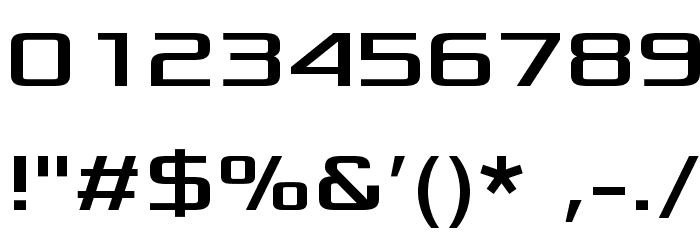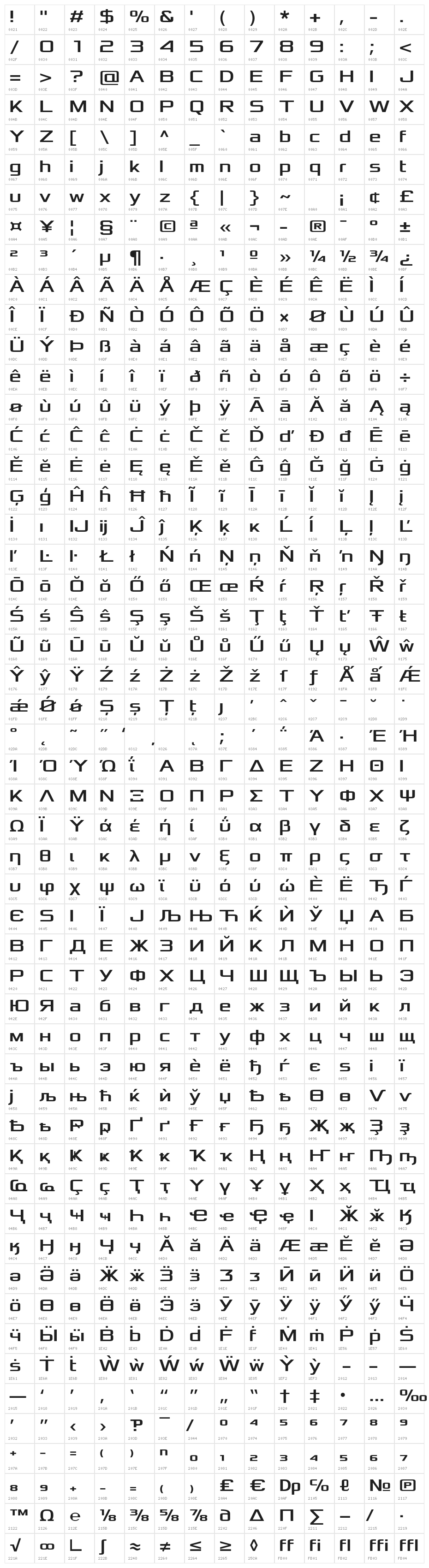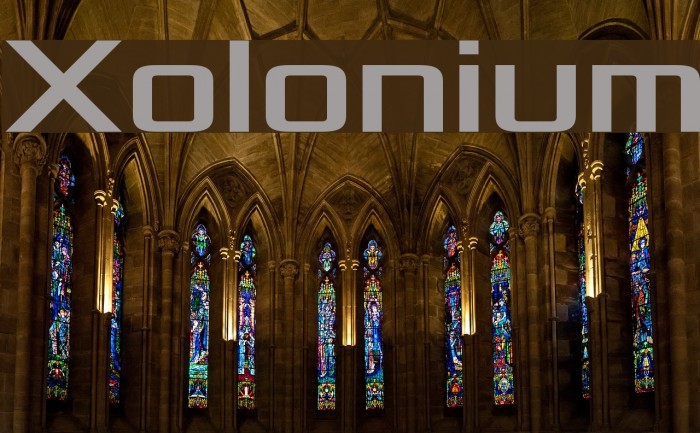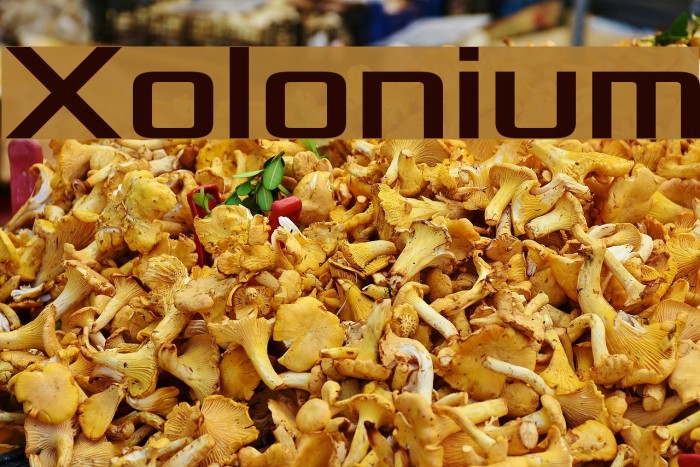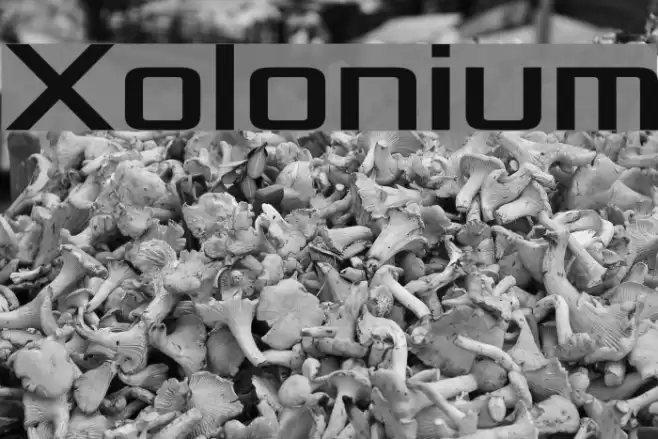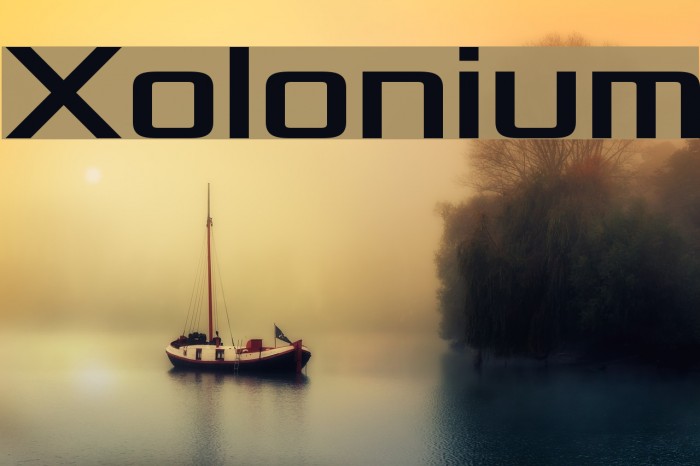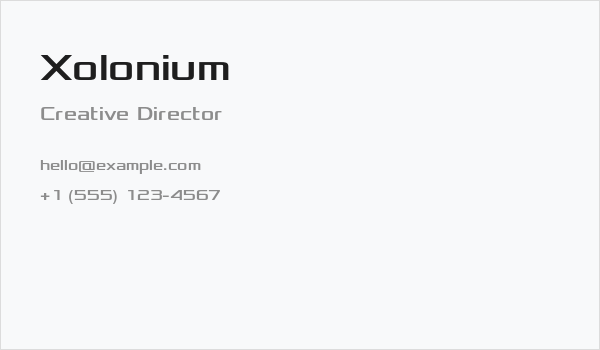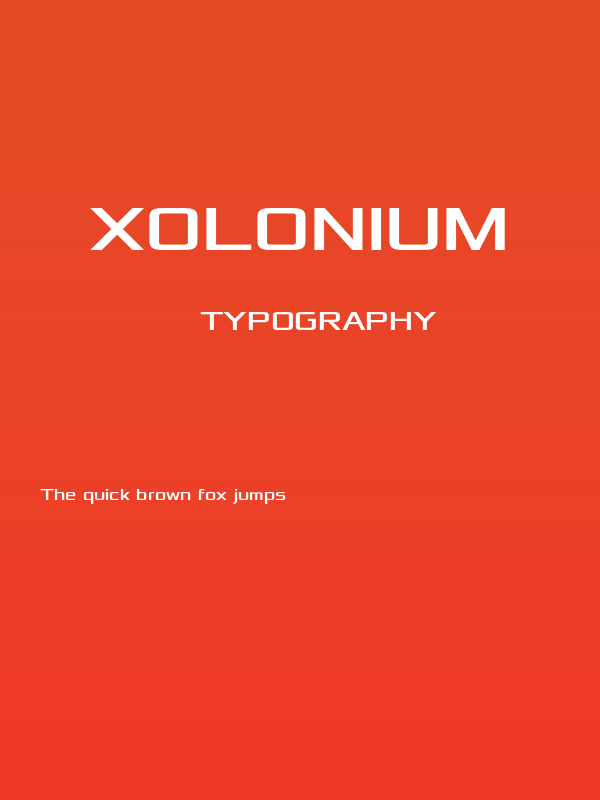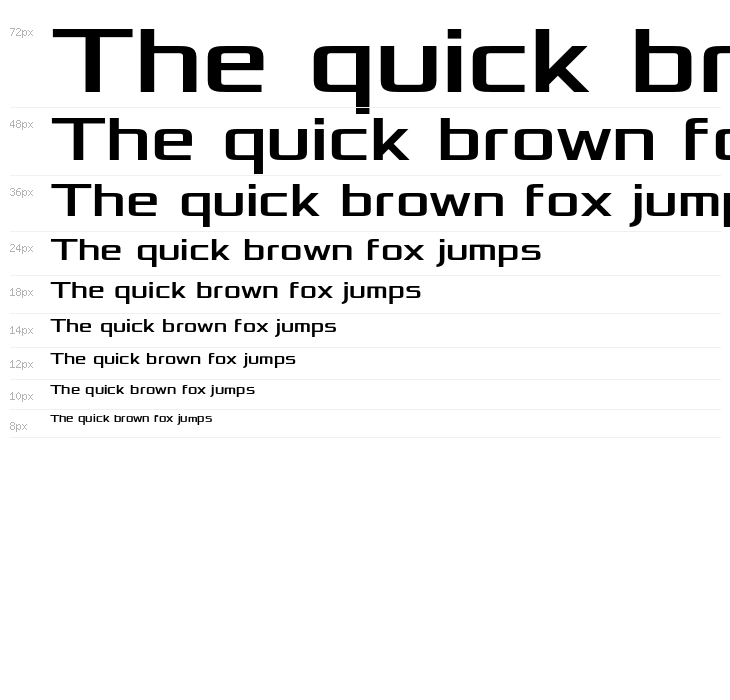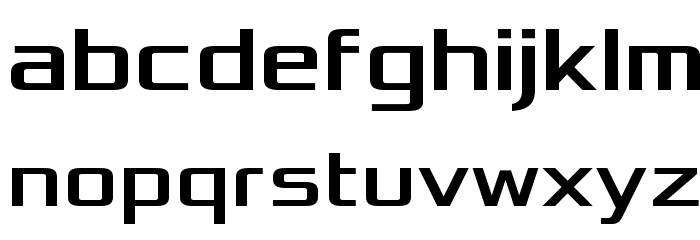
Xolonium Font
Xolonium Description
This font exhibits a modern and geometric design with clean lines and a structured appearance. The uppercase letters are bold and angular, giving a futuristic feel, while the lowercase letters maintain a consistent style with slightly rounded edges that soften the overall look. The numerals are distinct and easy to read, matching the angular style of the alphabet. Special characters are well-integrated, maintaining the font's cohesive design. This font is suitable for digital interfaces and modern branding, offering a sleek and professional appearance.
| Use Case | Headlines, Logos, Digital Interfaces |
| Proposed Projects | Ideal for tech branding, digital interfaces, and modern advertising campaigns. |